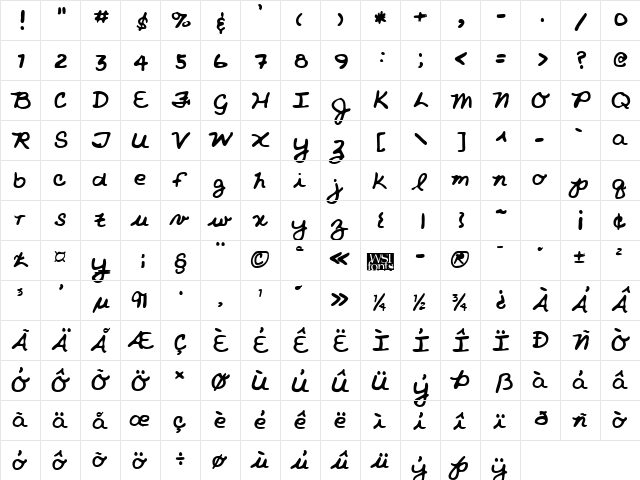
NicholesHand Regular
Design Context for NicholesHand Typeface
NicholesHand flows with the natural rhythm of handwritten lettering, making it ideal for designs that call for warmth and personal expression.
Font Pairing: Combine NicholesHand with a simple geometric sans for maximum contrast — the tension between flowing curves and clean structure is a classic typographic pairing.
Pro Tip: Pair NicholesHand with a clean sans-serif for supporting text. The contrast between fluid script and geometric structure creates an elegant typographic hierarchy.